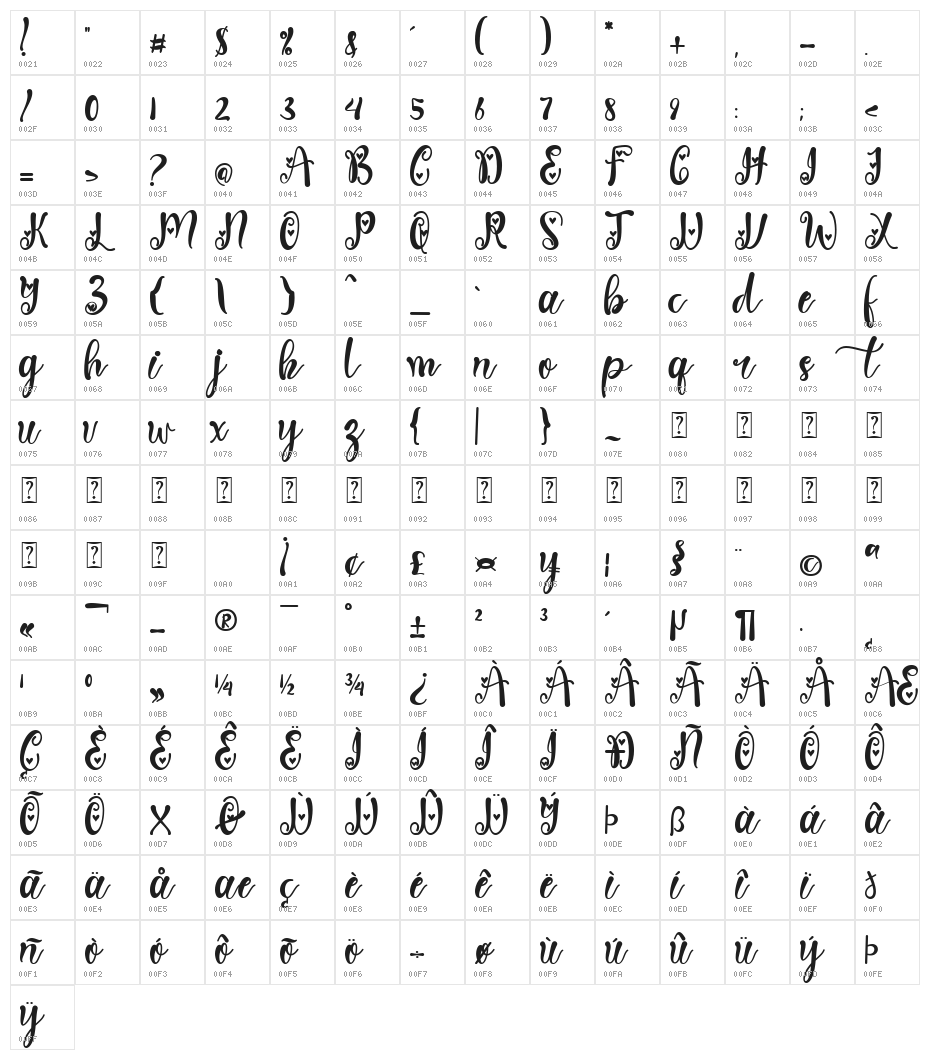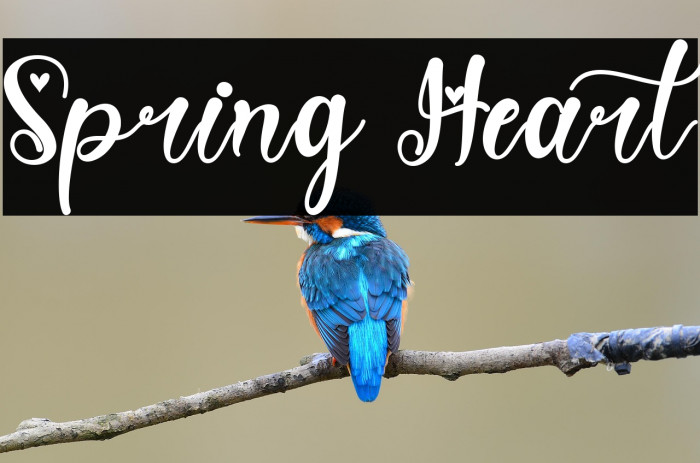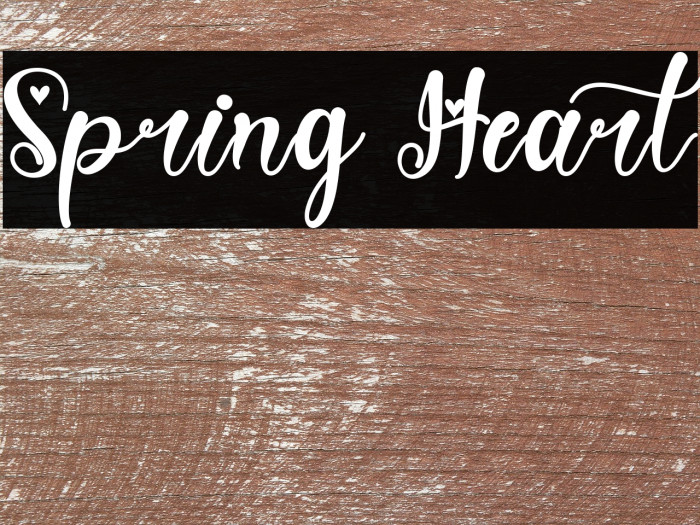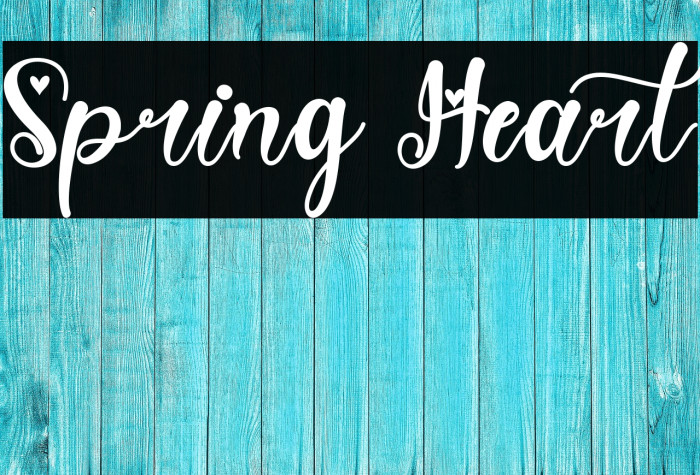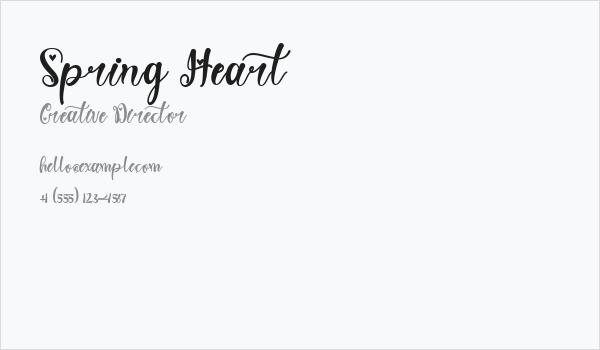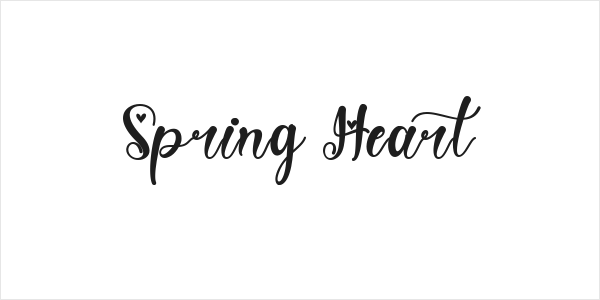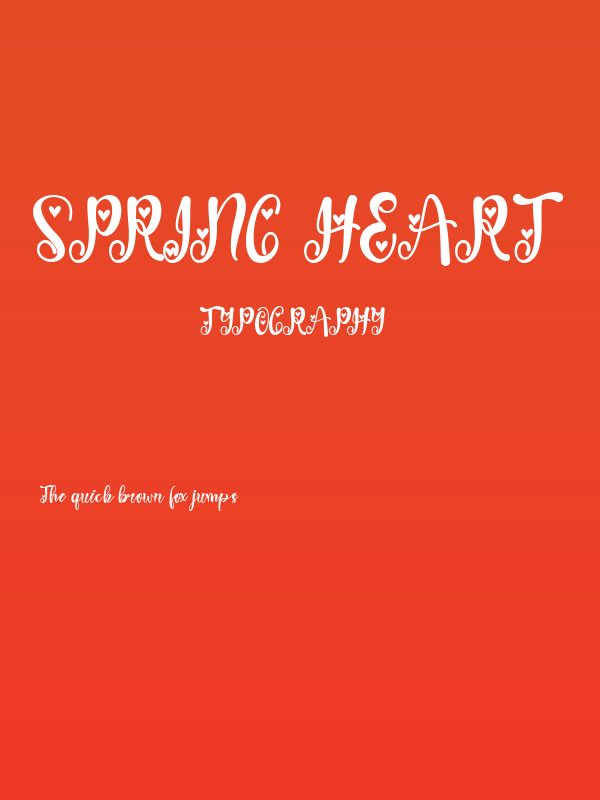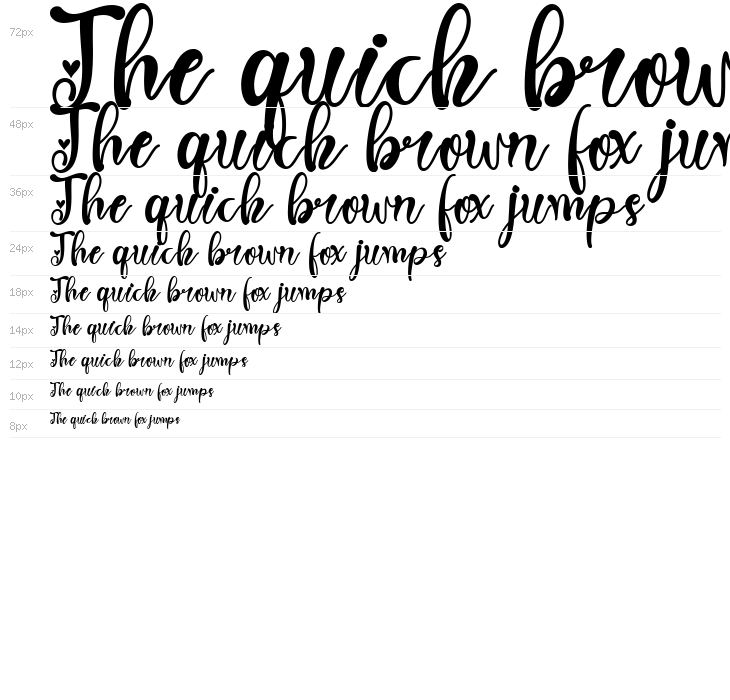
Spring Heart Font
Spring Heart Description
This font features a playful and whimsical design with heart motifs integrated into the uppercase letters, adding a charming and romantic touch. The lowercase letters are crafted with a flowing, cursive style that enhances its elegant and artistic appeal. The numerals and special characters maintain the same playful aesthetic, making it a cohesive choice for creative projects. Its unique style is perfect for designs that aim to convey warmth and affection, such as greeting cards, wedding invitations, or love-themed branding.
Use CaseHeadlines, Logos, Invitations
Proposed ProjectsIdeal for wedding invitations, greeting cards, romantic branding, and playful design projects.